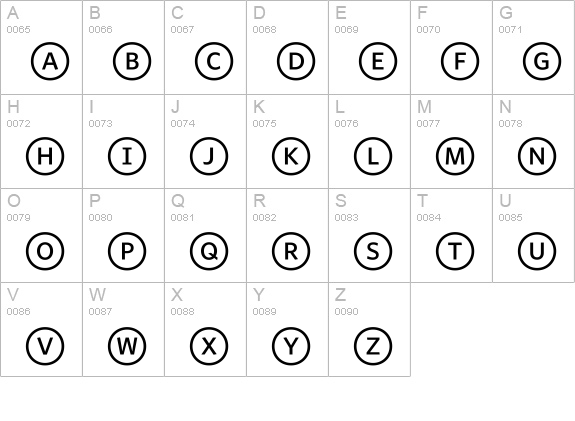
WhitneyIndexWhite-RoundMd font is a unique and modern typeface that will add a touch of elegance to any design project. With its round and bold appearance, this font captures attention and exudes a sense of sophistication. The clean lines and smooth curves of WhitneyIndexWhite-RoundMd make it easily readable and perfect for various applications such as branding, logos, headings, posters, and more. Whether you're designing a website, creating a brochure, or crafting an eye-catching advertisement, this font will elevate your design to the next level. One of the best things about WhitneyIndexWhite-RoundMd is that it is completely free. You can freely download it from FontsMarket.com, a trusted source for high-quality fonts. This means you can use this font without any restrictions or hidden costs, making it an excellent choice for both personal and commercial projects. The versatility of WhitneyIndexWhite-RoundMd is another aspect that makes it a must-have in your font collection. It works well with different font pairings, allowing you to create visually stunning combinations. The rounded edges of this font add a touch of softness, making it suitable for designs that require a friendly and approachable feel. In terms of legibility, WhitneyIndexWhite-RoundMd excels. The carefully crafted letterforms ensure that each character is easily distinguishable, even at smaller sizes. This makes it ideal for body text, ensuring that your message is conveyed clearly and effectively. Overall, WhitneyIndexWhite-RoundMd is a beautiful and versatile font that will enhance your design projects. Its free availability at FontsMarket.com allows you to explore its potential without any limitations. So go ahead and download WhitneyIndexWhite-RoundMd today to add a touch of elegance and sophistication to your designs.